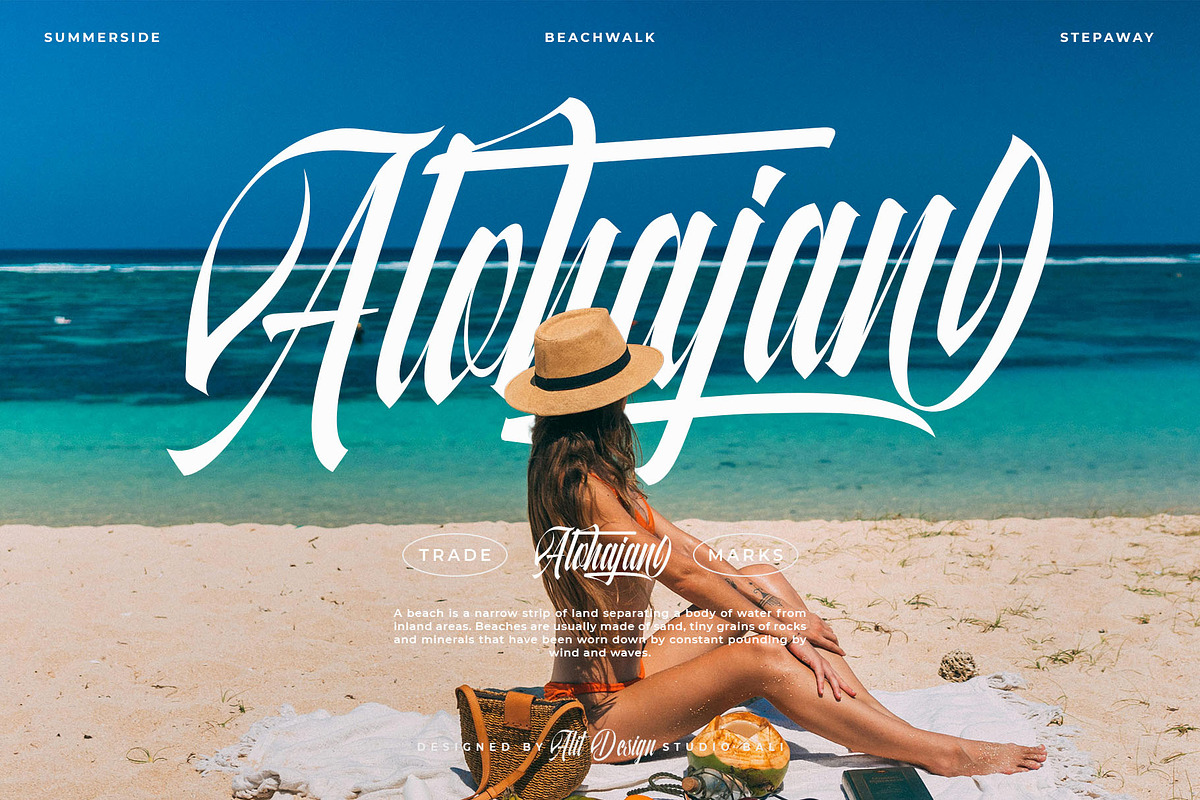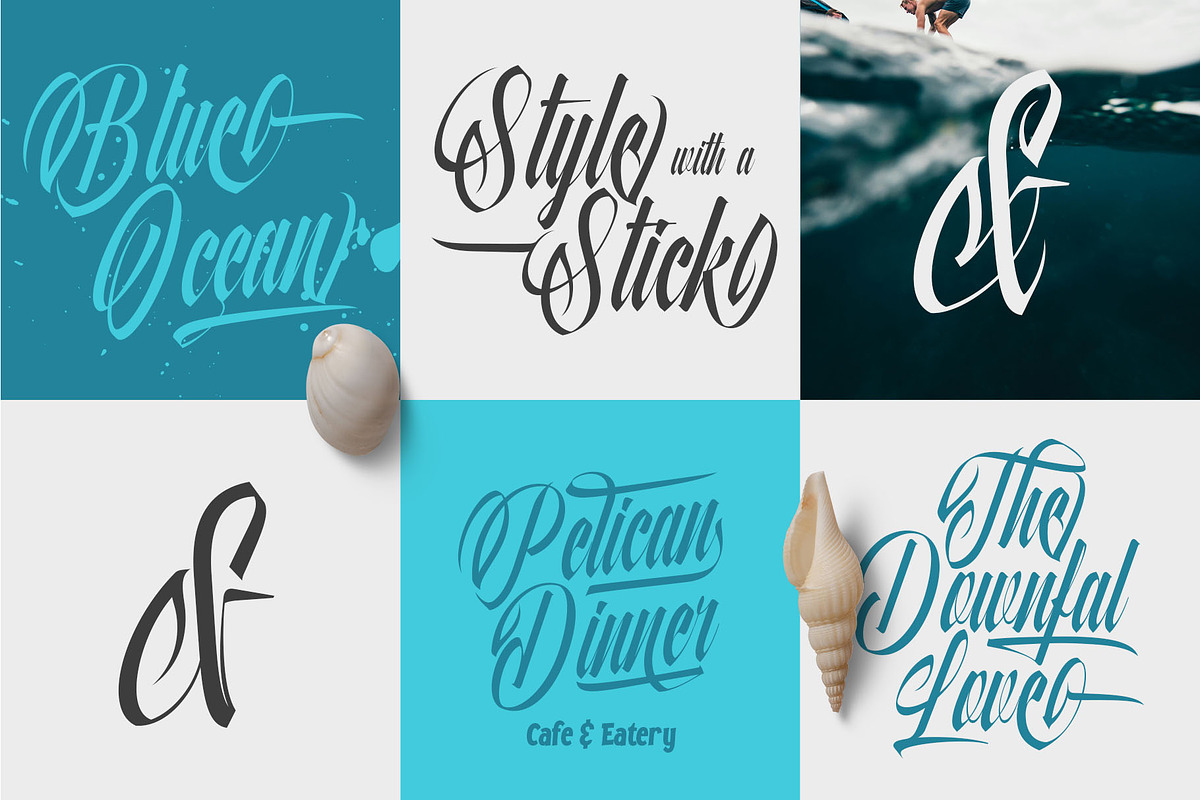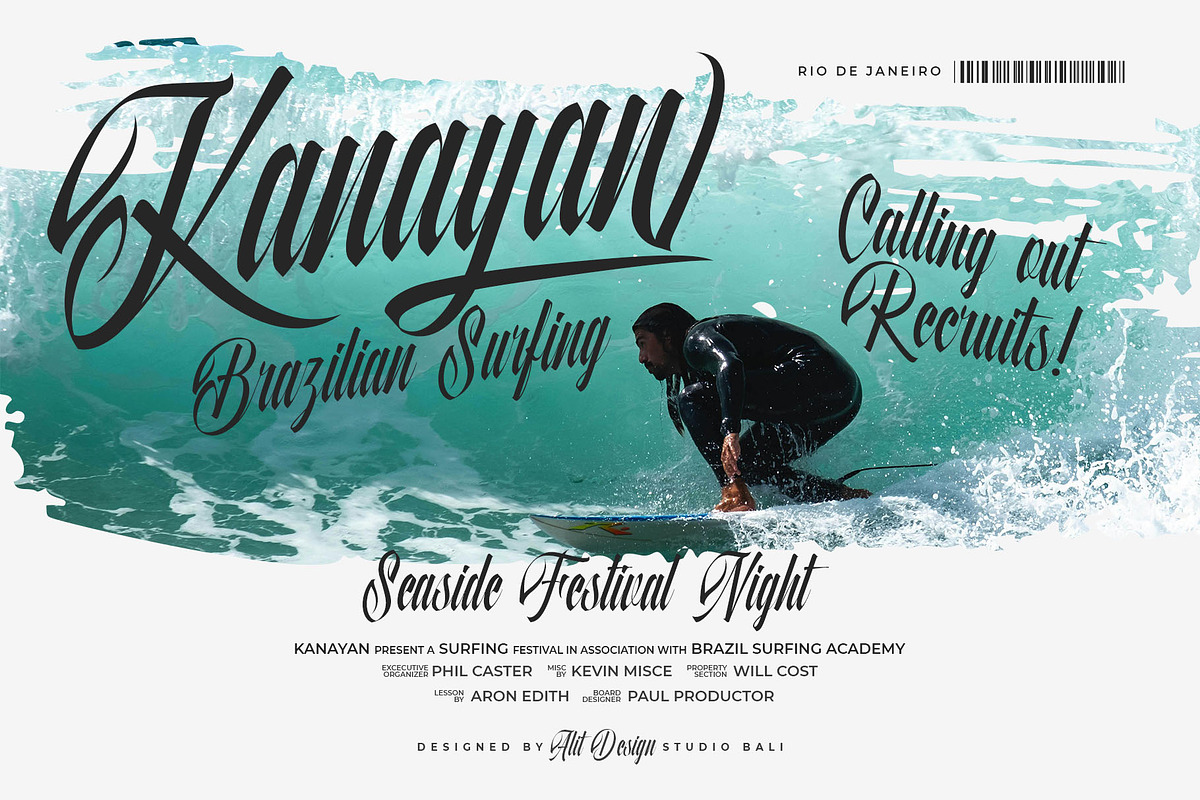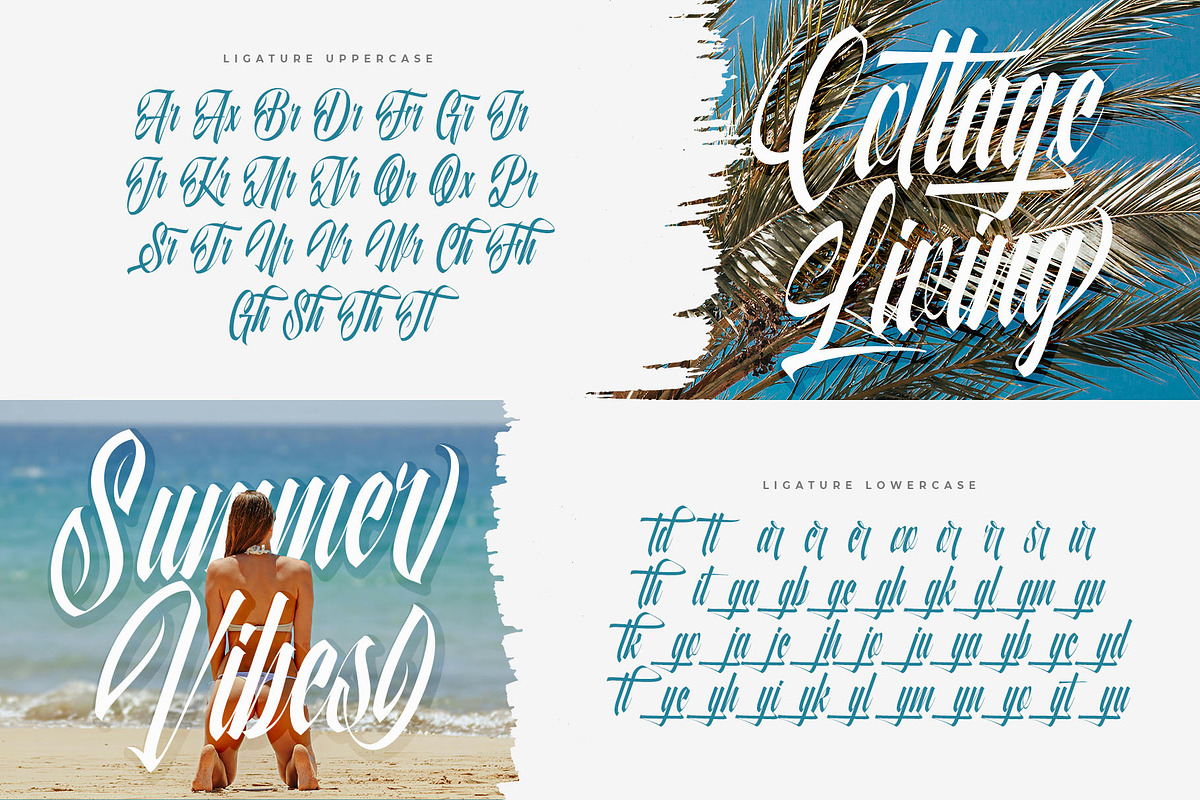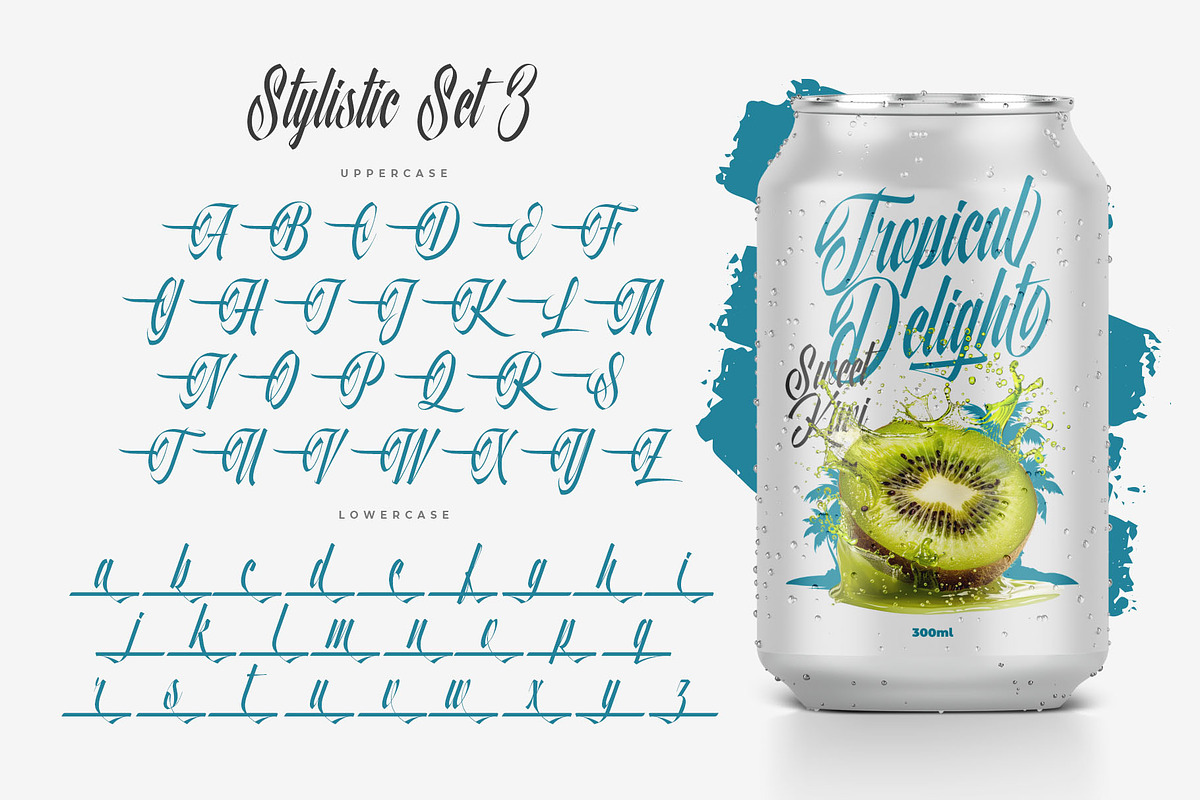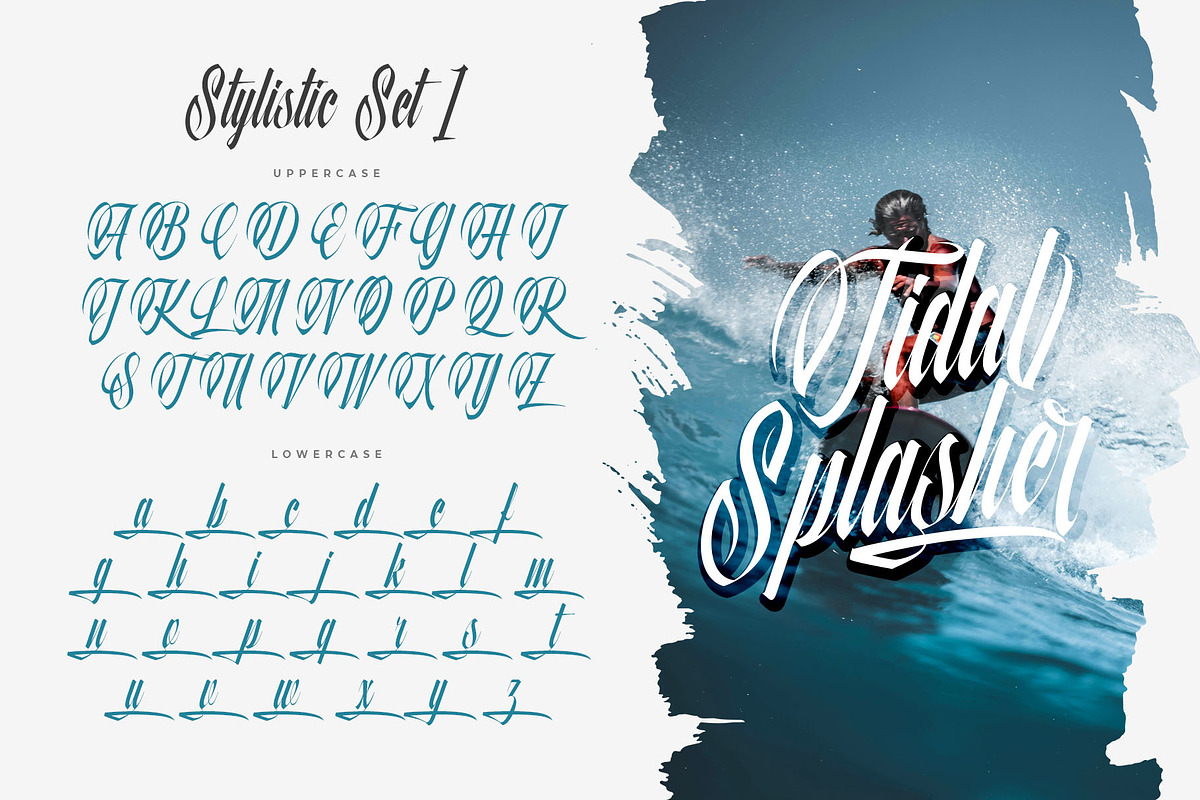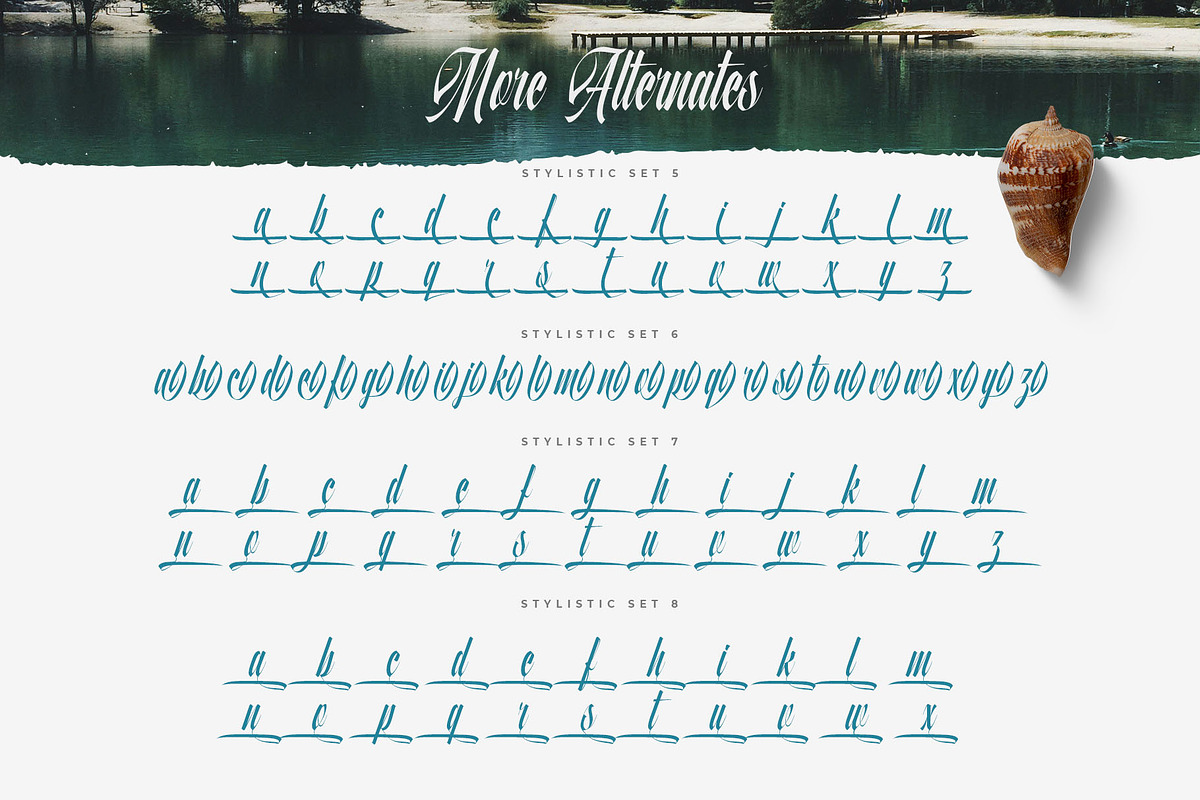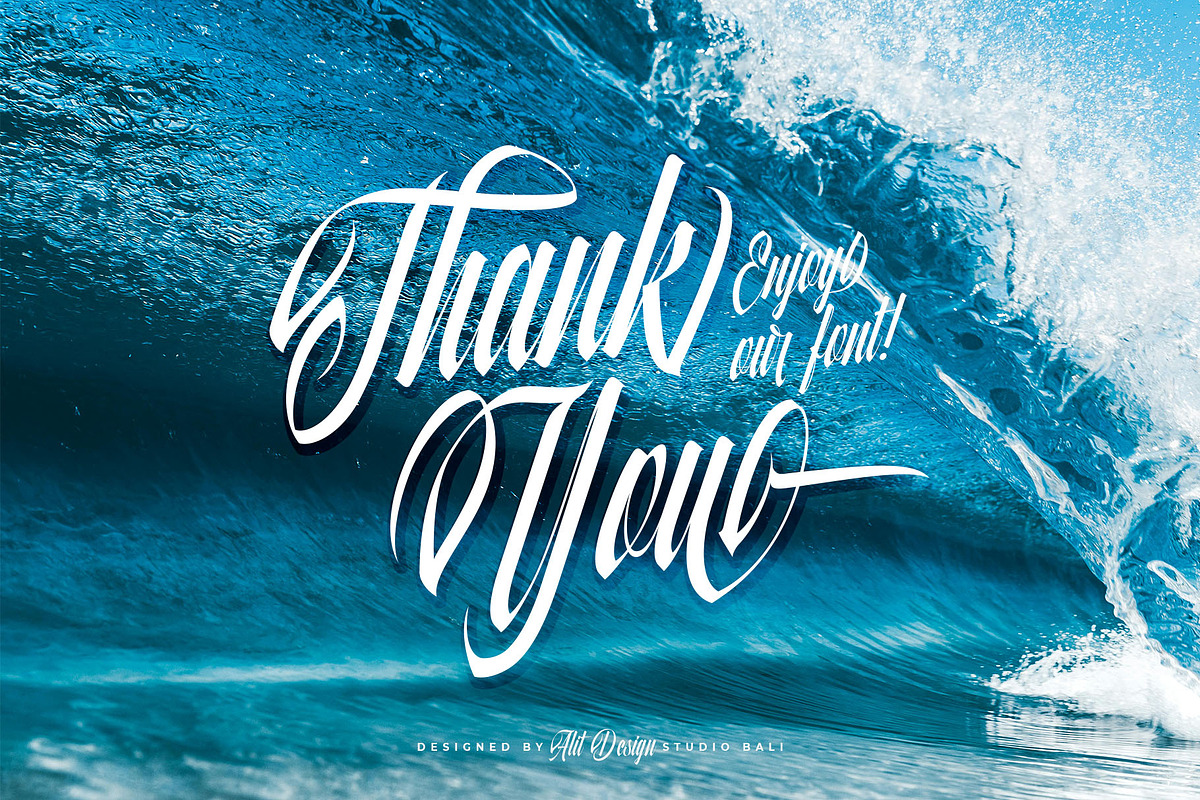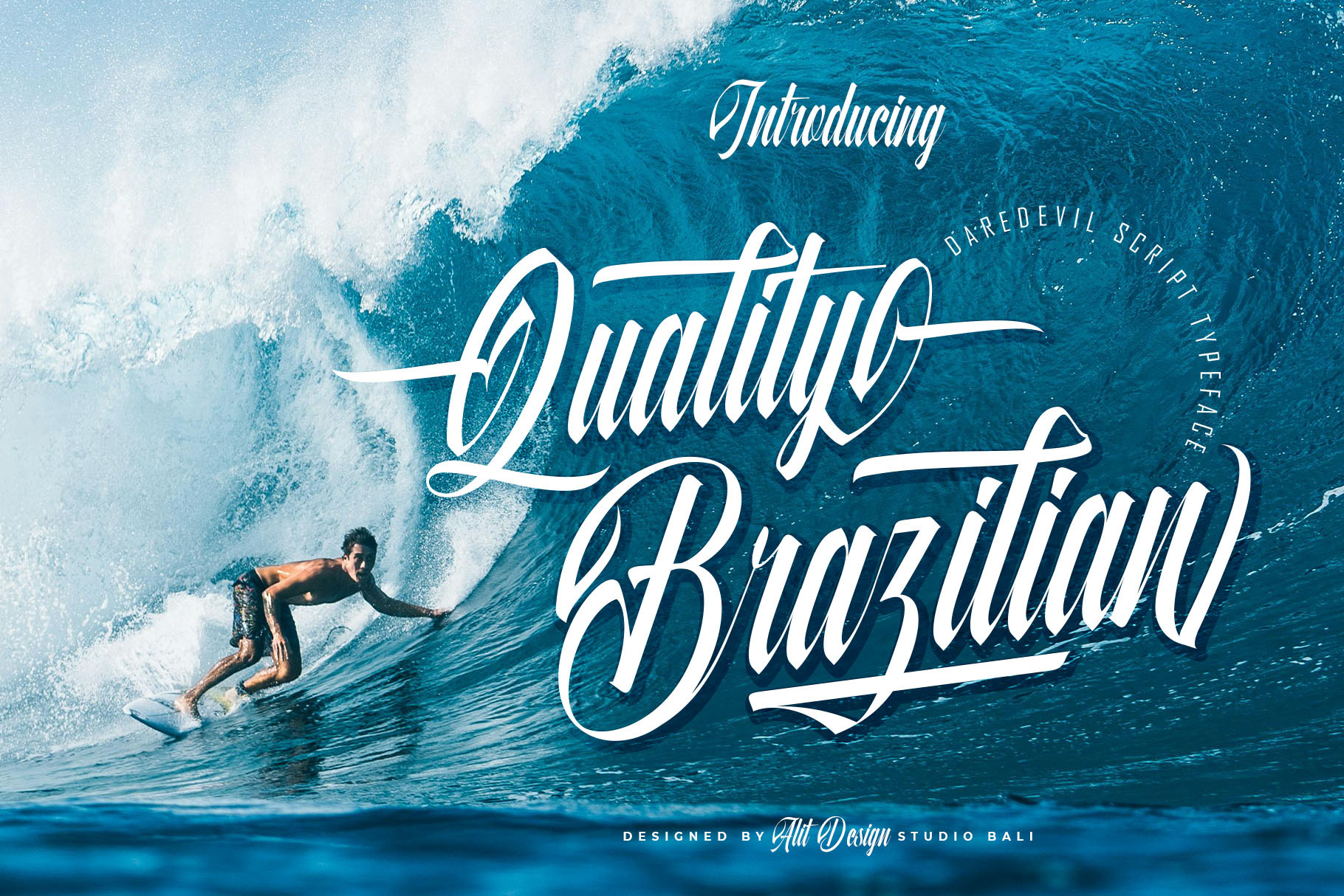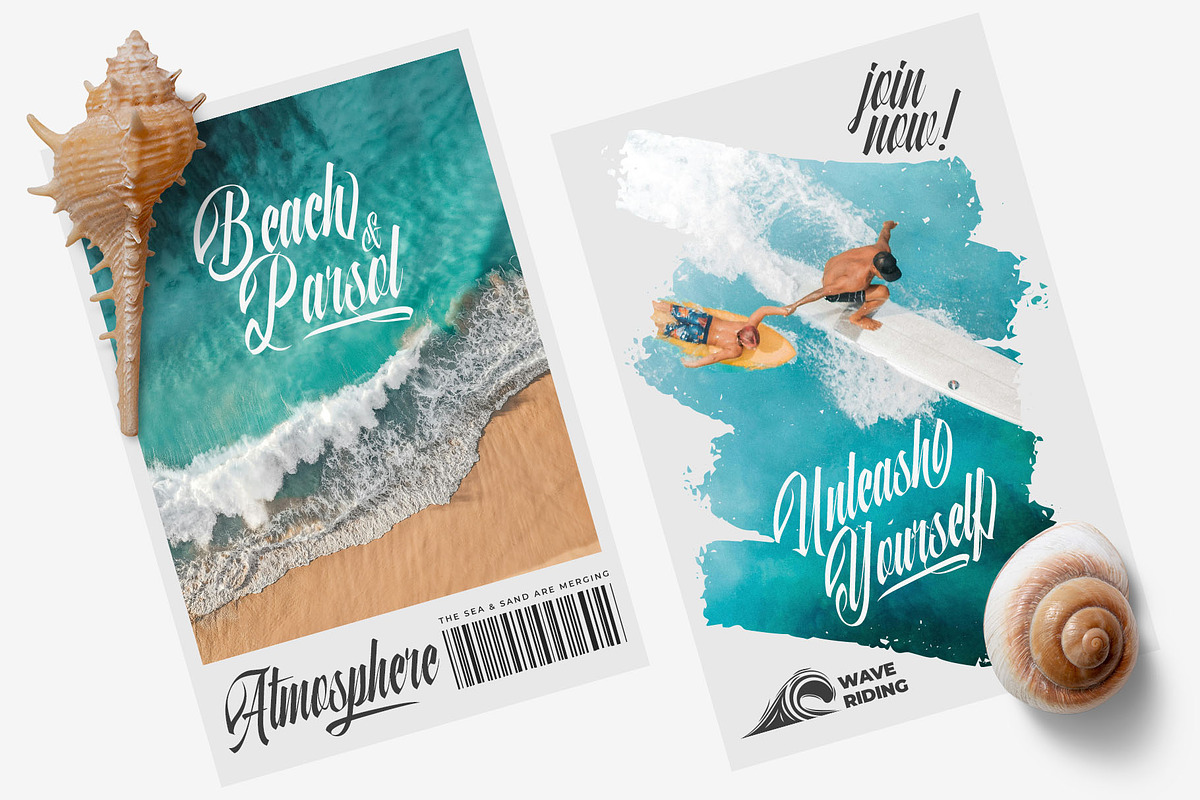
Quality Brazilian Font
Discover the Essence of Summer with Quality Brazilian Font
Introducing the Quality Brazilian Font, a masterful typeface designed to capture the vibrant spirit of Brazil. This font is perfect for adding a dynamic and fierce script to your designs, infusing them with a sense of speed and energy.
- Fierce Script: Bold and assertive, this script style commands attention and adds a touch of Brazilian flair to any project.
- Speedy: Inspired by the fast-paced lifestyle of Brazilian cities, this font is designed to convey movement and dynamism.
- Dynamic: Versatile and lively, it adapts to various design needs, ensuring your text stands out.
- Ligatures: Enhance the aesthetic appeal of your text with beautifully crafted ligatures that ensure smooth, connected letterforms.
- Swash: Add a touch of elegance and style with swash characters, perfect for creating sophisticated and eye-catching designs.
- 891 Characters: A comprehensive character set that provides unparalleled flexibility and creativity in your design projects.
- Best for Summer: With its vibrant and energetic style, the Quality Brazilian Font is ideal for summer-themed designs, from beach party invitations to tropical travel brochures.
Embrace the summer vibes and elevate your designs with the Quality Brazilian Font, where fierce script meets dynamic style. Perfect for any project that requires a touch of Brazilian heat and vitality!